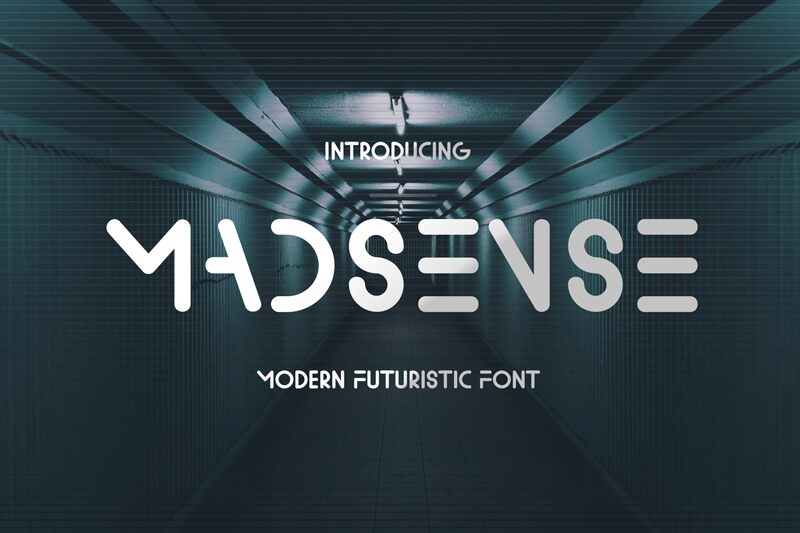
Madsense font is a futuristic font designed by Typefactory. Madsense has a digital world feel. The font is suitable for creating wordmarks, titles, book covers, font games, e-sports, taglines, and modern technology interior themes.